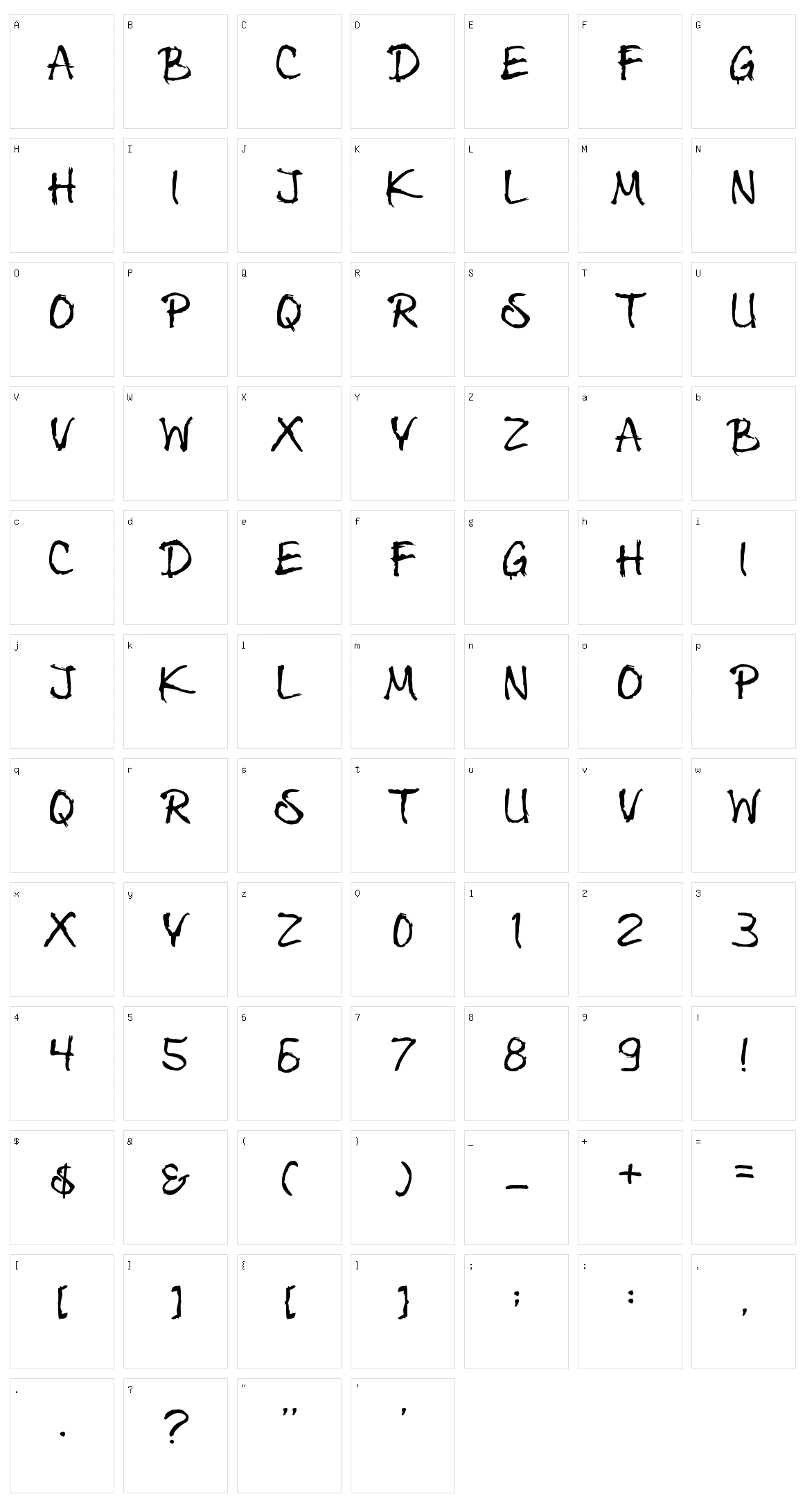
The free font Shinrinyoku is carefully designed by Tigadestd, showcasing a thoughtful balance of creativity and usability and falls under the Asian font style. When you download the ZIP file, it contains only 159.37 KB of font files, making it lightweight and quick to download. Please review the license details below to understand permitted usage and distribution rights. If license information is not available, we recommend using this font for personal projects only or contacting the author directly for commercial usage permissions.